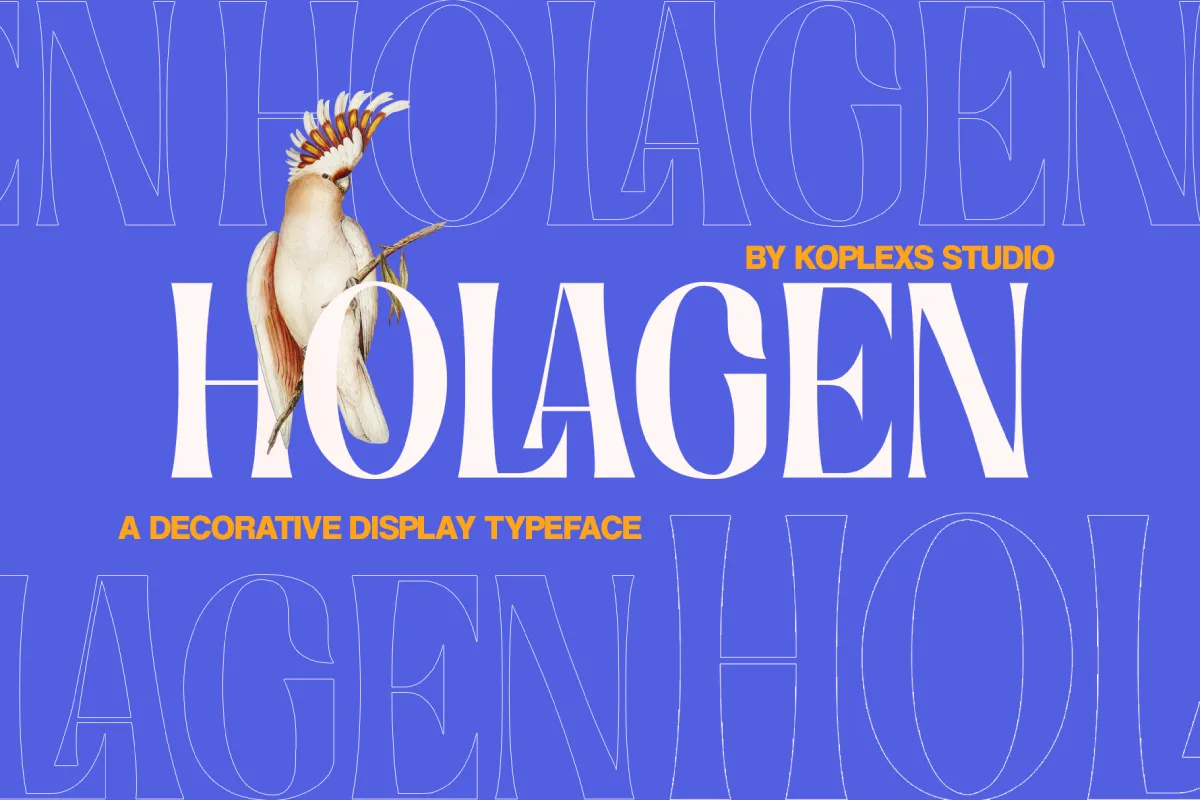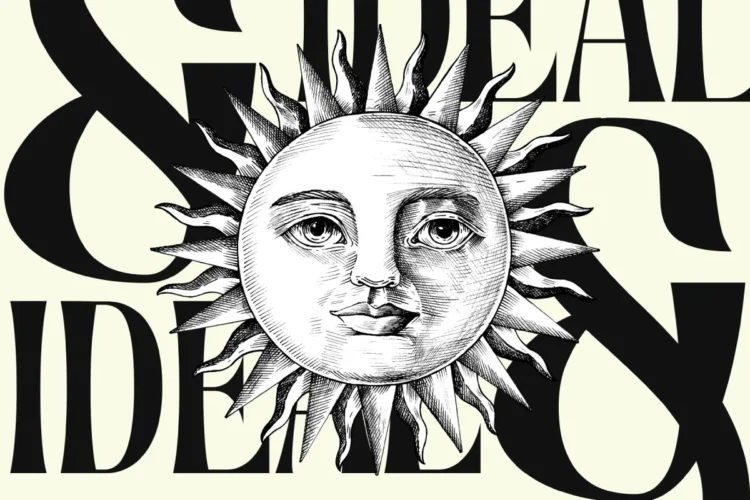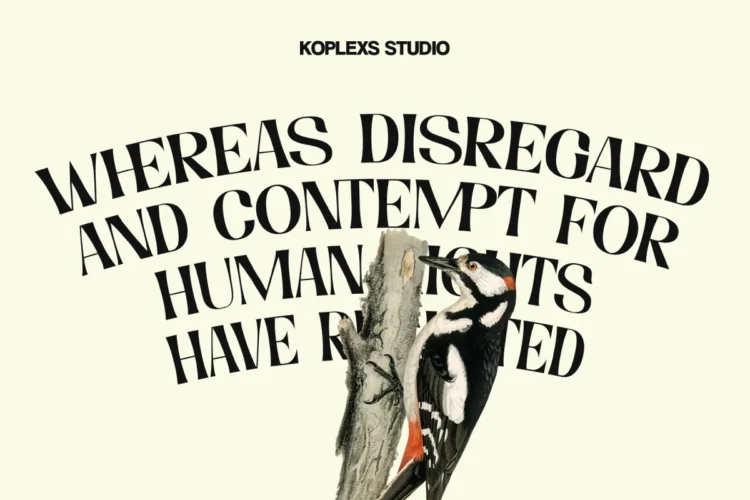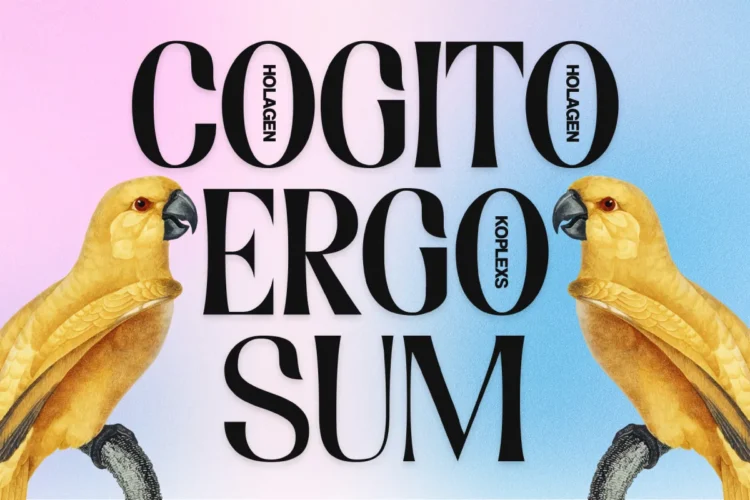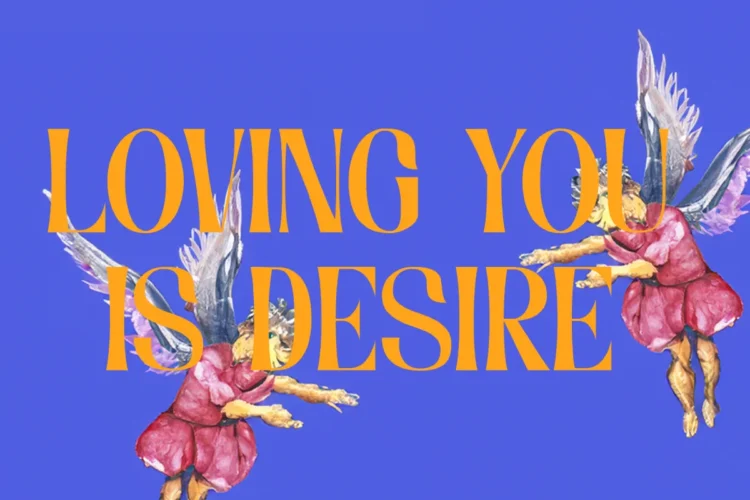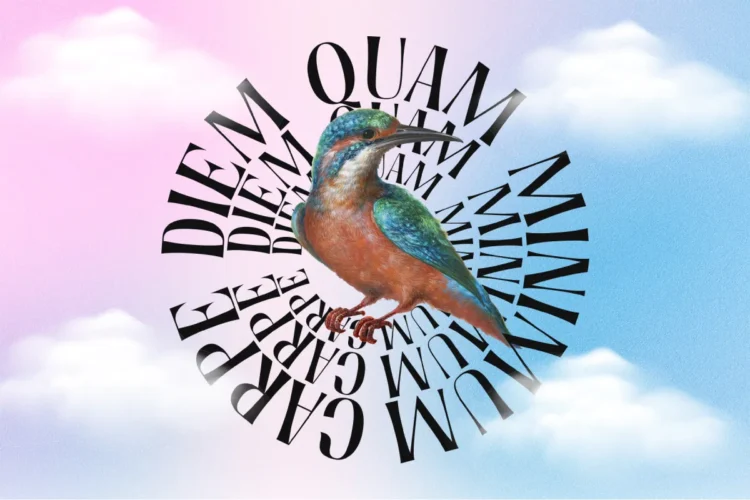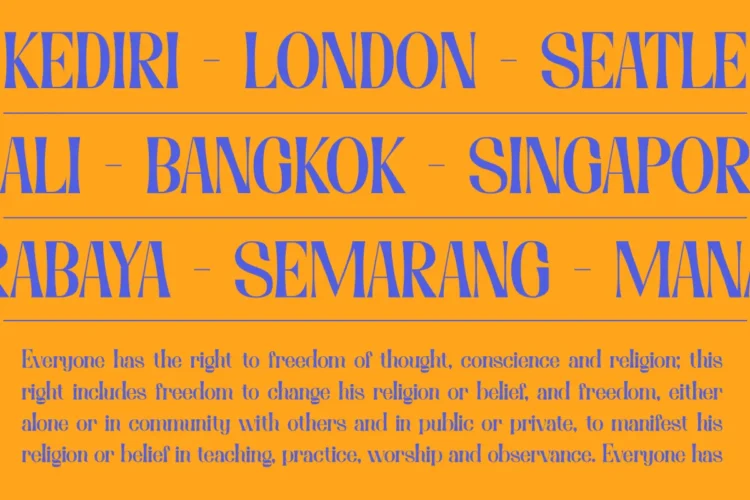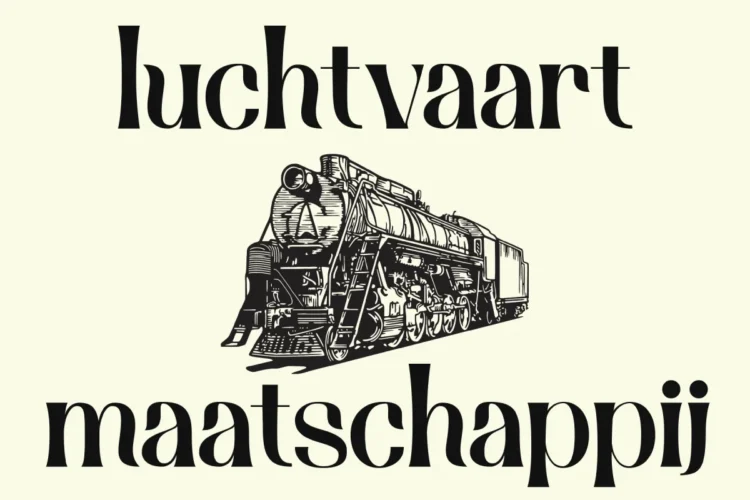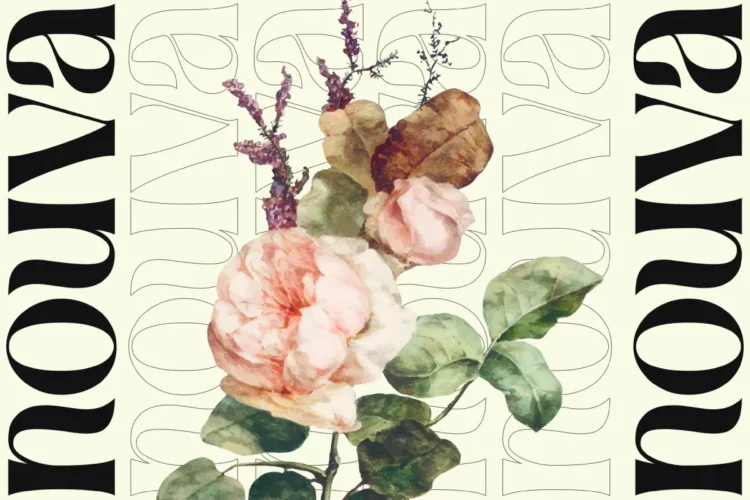
Holagen Font
✨ Holagen Font – A Decorative Display Serif Font for Elegant Branding & Modern Design
Holagen Font by Koplexs Studio is a decorative display font that combines the grace of a classic serif font with a fresh modern font aesthetic. Featuring complete with alternates and ligatures, Holagen Font stands out as a cool font and a truly aesthetic font for high-end visuals.
Designed with timeless curves and stylish contrast, this luxury font evokes sophistication—perfect for creating branding fonts, logo fonts, cosmetic fonts, and poster fonts. Whether you’re crafting headlines, editorial covers, or elegant packaging, Holagen Font ensures your message radiates refinement and creativity.
• Standard & Multilingual glyphs
• Alternates
• Ligature
• Fonts include multilingual support
Holagen Font is versatile and works beautifully for :
• Logo design and branding font needs
• Cosmetic & fashion brands
• Luxury packaging and editorial layouts
• Posters, covers, and magazine headlines
• Elegant invitations and wedding stationery
• Social media designs and creative projects
Holagen Font is not just a typeface it’s a work of art that brings beauty and harmony to every design.
Holagen Font is a decorative serif display font with elegant curves and modern flair. Perfect for branding, logos, headlines, cosmetics, and luxury design, it includes Regular & Italic styles with beautiful alternates and ligatures making it your next favorite aesthetic font for timeless, cool, and professional projects.